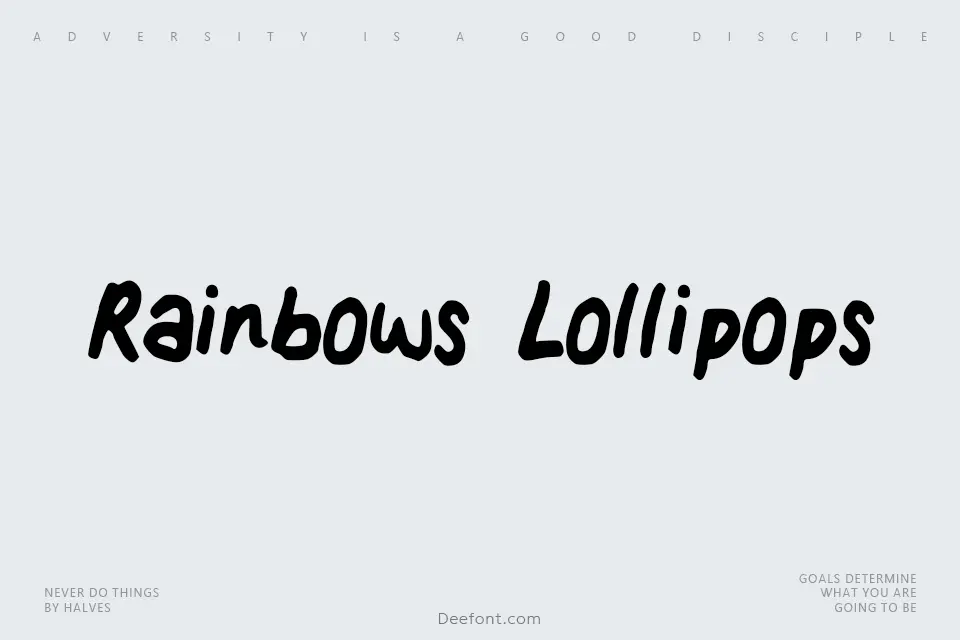
Rainbows Lollipops Font
Rainbows Lollipops is a delightfully playful handwritten typeface that brings a fun, cheerful character to any design. With its rounded, flowing strokes and bouncy letterforms, this font exudes a youthful, whimsical aesthetic perfect for children’s invitations, birthday party posters, festive holiday graphics, and candy-themed branding. The hand-drawn quality gives it an authentic, DIY charm that stands out in modern design, making it an excellent choice for playful titles, greeting cards, and eye-catching display work that demands personality and warmth.